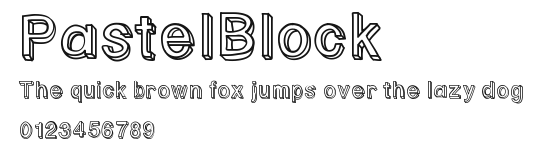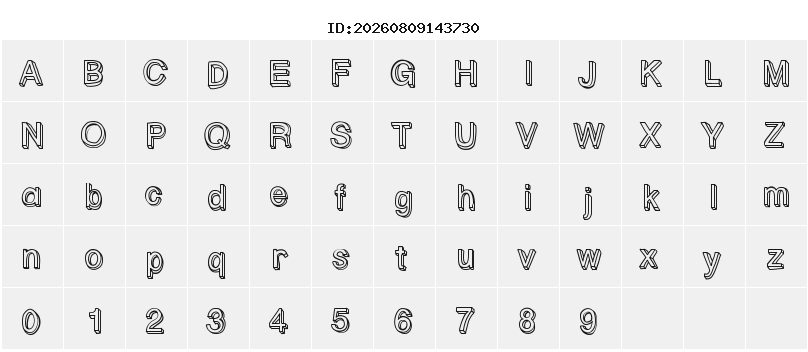
PastelBlock Preview
• Font Name: PastelBlock
• Full Font Name: PastelBlock
About PastelBlock.ttf
PastelBlock.ttf is a modern, elegant sans-serif font designed for ultimate readability and visual harmony. Perfect for branding, headlines, web design, and print materials.